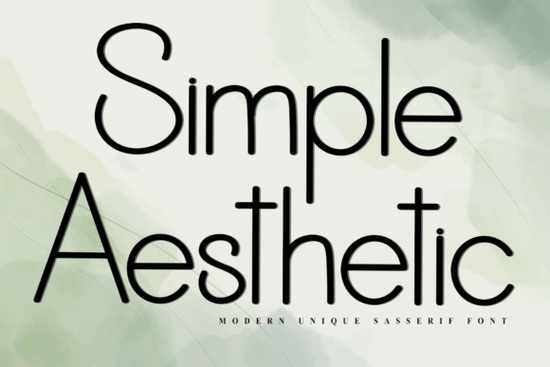
Finding the right font can make or break a design project. Simple Aesthetic is a font that balances softness with character it has distinctive strokes that feel both natural and intentional. Whether you're working on branding, social media graphics, or print-on-demand products, this typeface brings a quiet charm that works across many different creative projects.
What Makes This Font Stand Out From Other Script and Display Typefaces?
A lot of fonts on the market try too hard to be trendy. Simple Aesthetic takes a different approach. Its letterforms are clean but not cold, decorative but not overwhelming. The strokes have a gentle, organic quality that gives text a warm, approachable feel.
Here's what you'll notice right away:
- Soft, rounded strokes that feel handcrafted without looking messy
- Unique character shapes that set it apart from generic script fonts
- Good readability at both small and medium sizes
- Versatile style that fits feminine branding, minimalist layouts, and artistic compositions
What Can You Use Simple Aesthetic Font For?
This font is practical for a surprisingly wide range of uses. Here are some of the most popular applications:
- Wedding invitations and event stationery the soft style feels romantic and elegant
- Social media posts and quotes eye-catching without being distracting
- Logo design and branding kits works well for boutiques, salons, and lifestyle brands
- Print-on-demand products tote bags, mugs, t-shirts, and planners
- Blog headers and website graphics adds personality to digital content
- Scrapbooking and craft projects pairs well with floral and nature-themed designs
For POD sellers specifically, fonts like this one are gold. A well-chosen typeface on a t-shirt or mug design can be the difference between a product that sells and one that sits unnoticed. Simple Aesthetic has that subtle appeal that catches a buyer's eye without trying too hard.
How Does It Pair With Other Fonts?
Good font pairing is about contrast and balance. Since Simple Aesthetic has a decorative, soft character, it works best alongside a clean, simple sans-serif or serif for body text.
Some pairings that work well:
- Simple Aesthetic + a clean sans-serif great for modern, minimal layouts
- Simple Aesthetic + a light serif adds a classic, editorial feel
- Simple Aesthetic + a bold display font creates visual hierarchy in posters and banners